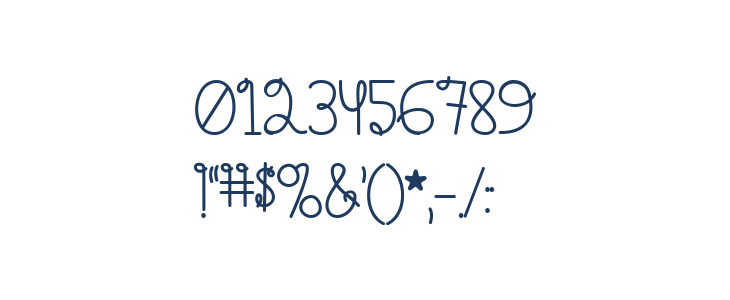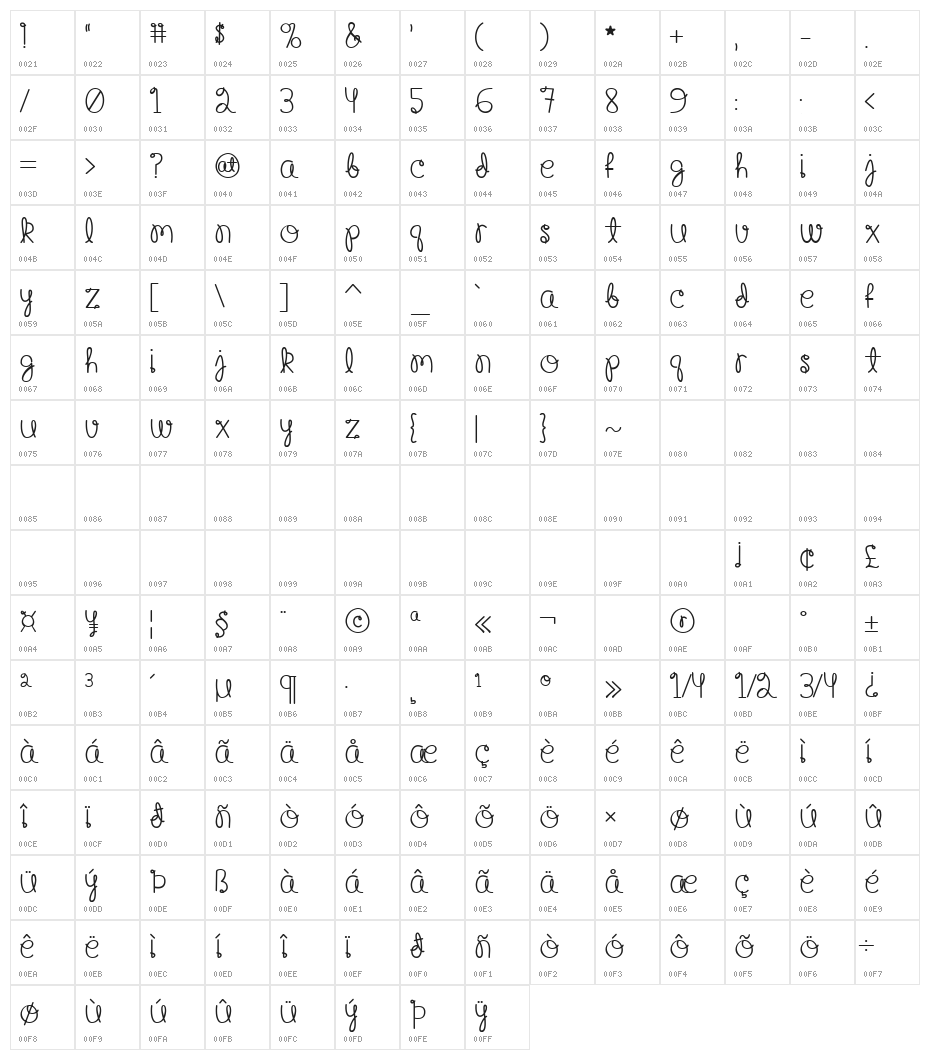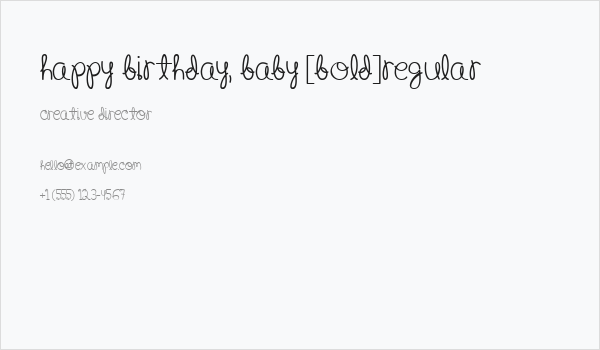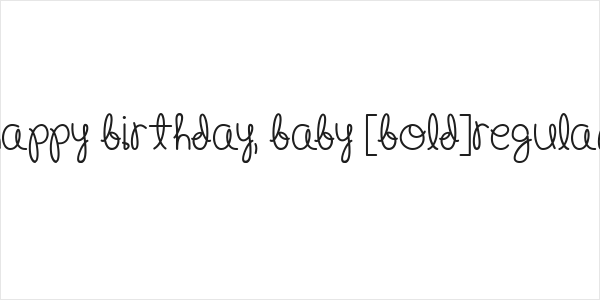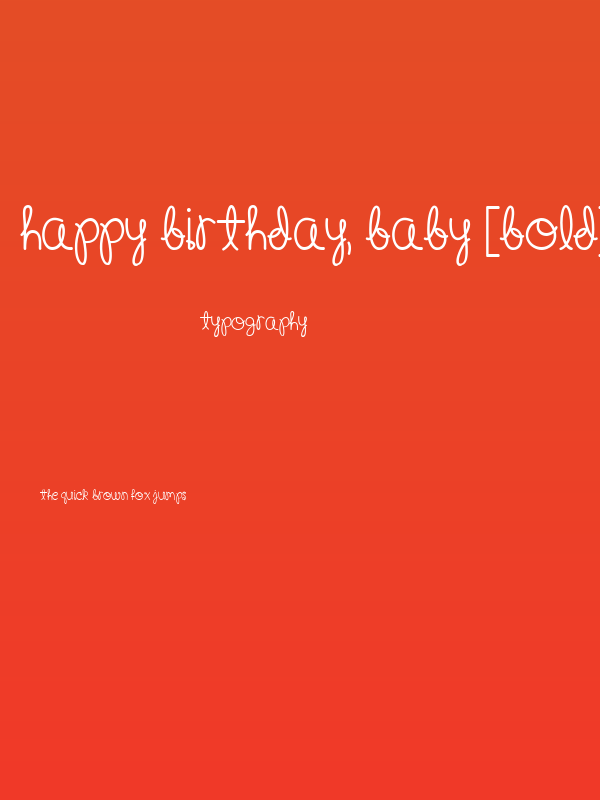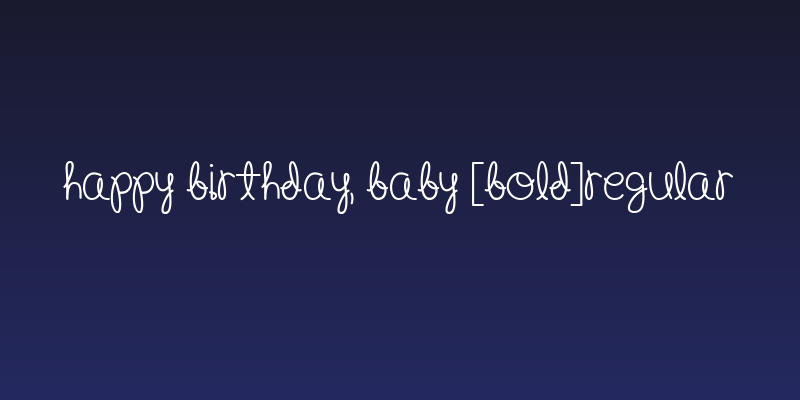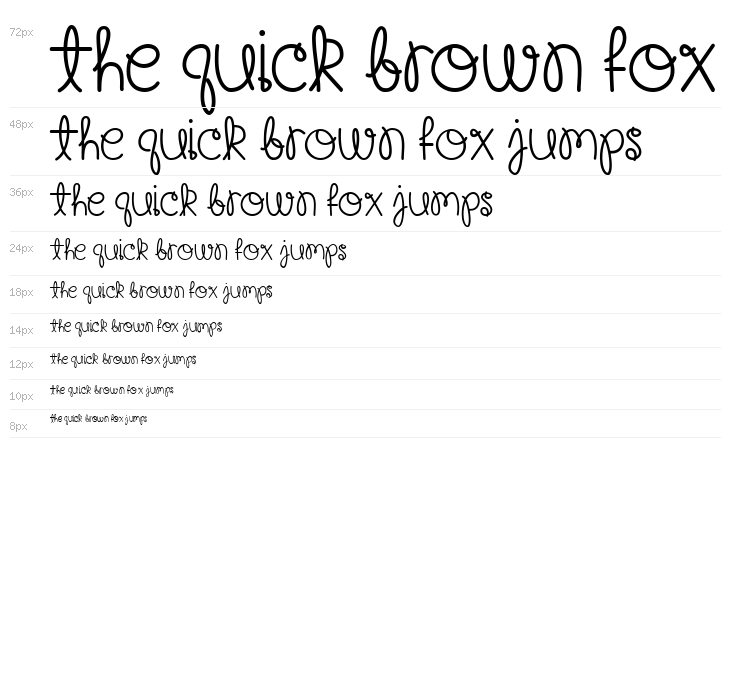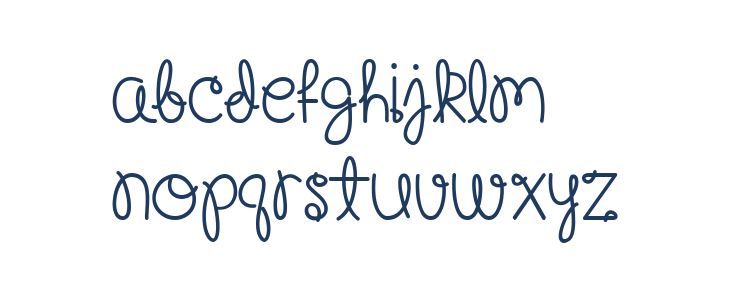
Happy Birthday, Baby [Bold]Regular Font
Happy Birthday, Baby [Bold]Regular Description
This playful and whimsical font features a handwritten style with a unique twist. Each character is crafted with a consistent stroke width, giving it a uniform appearance. The letters are rounded and feature playful loops and curls, adding a sense of fun and creativity. The font maintains a casual and friendly vibe, making it ideal for projects that require a personal touch. The numbers and special characters are designed to match the playful style of the letters, ensuring a cohesive look across all text elements.
| Proposed Projects | Perfect for greeting cards, children's books, playful branding, and party invitations. |